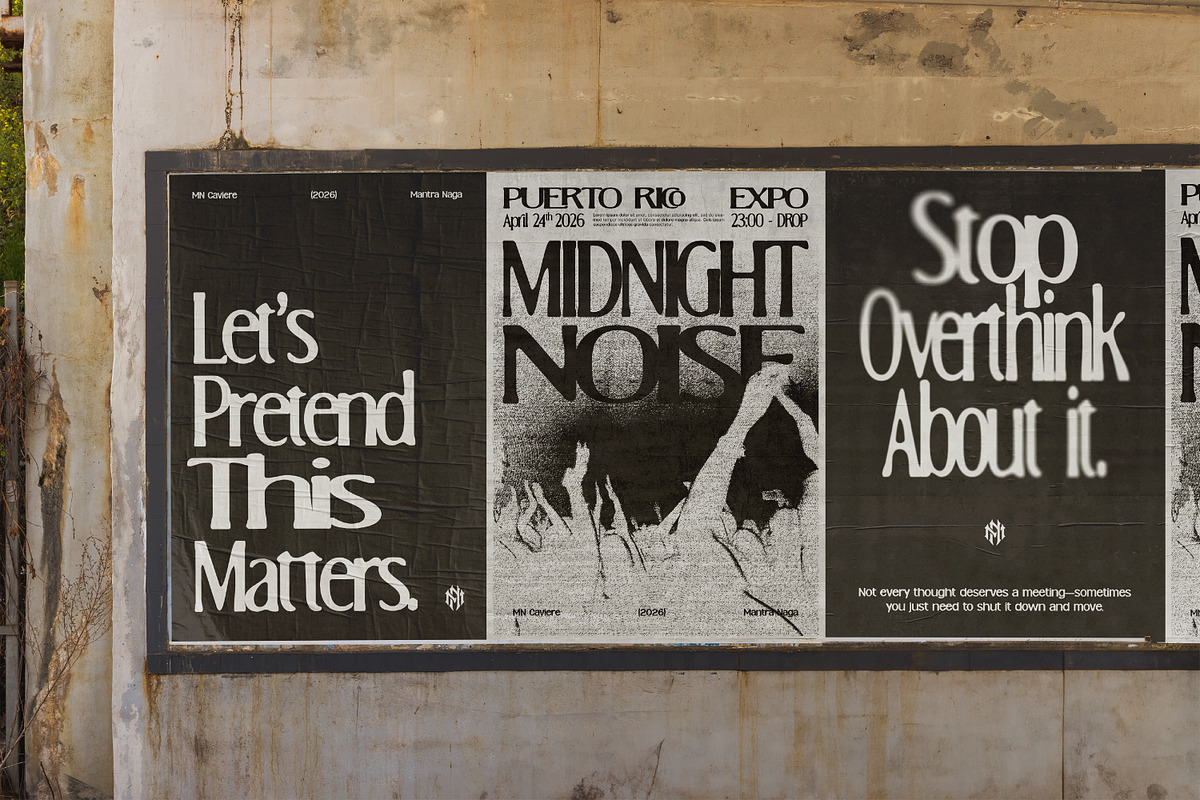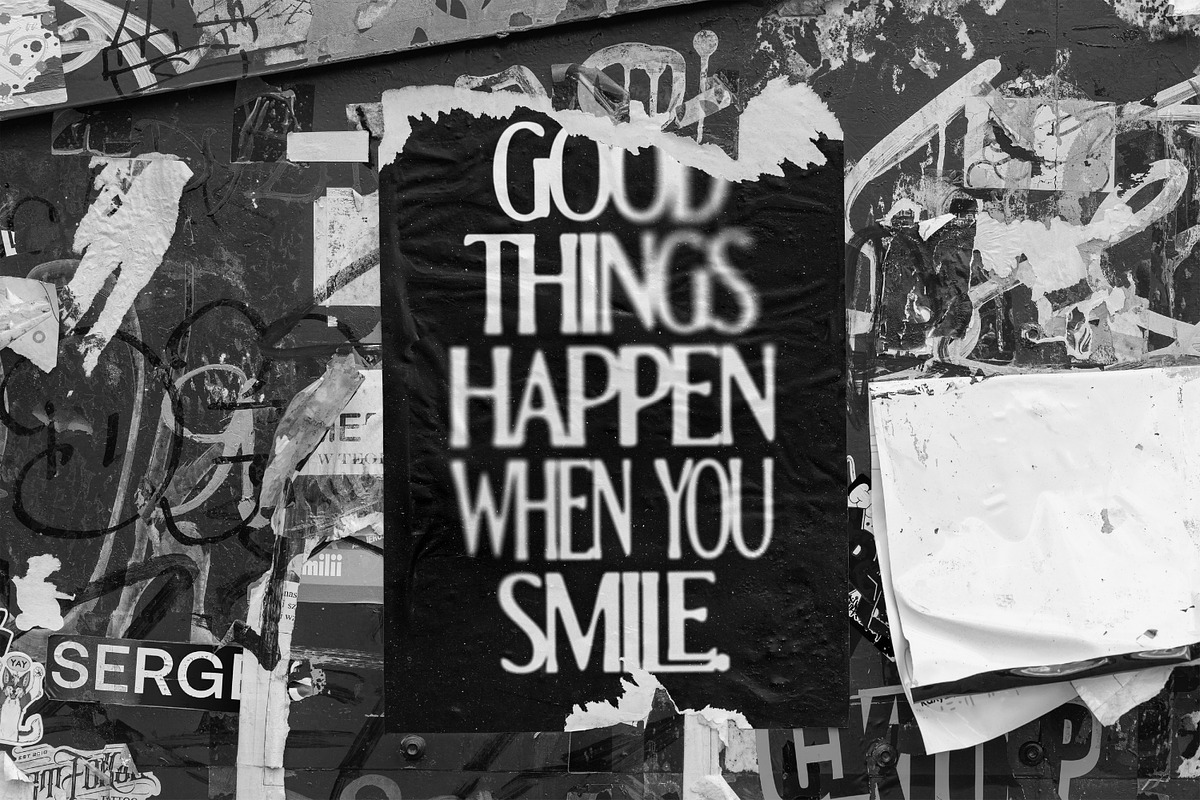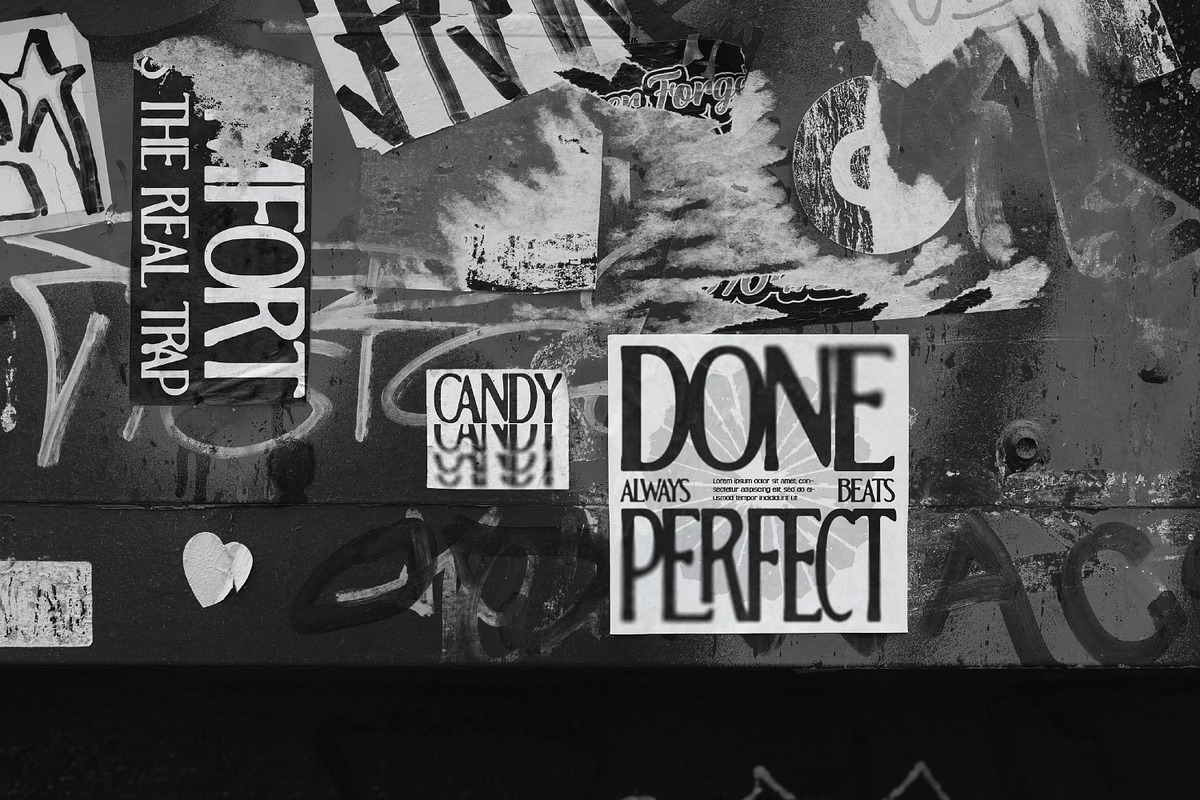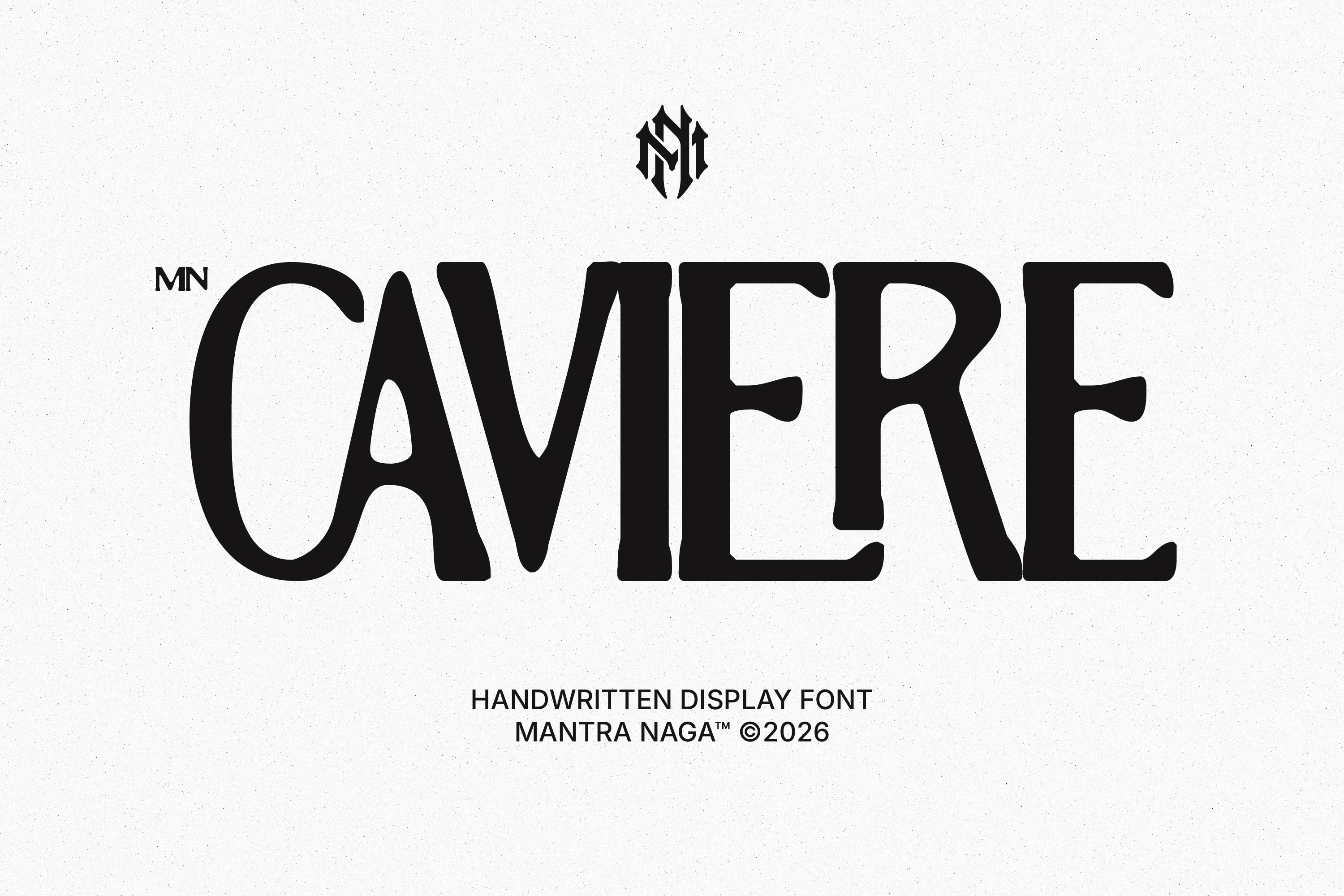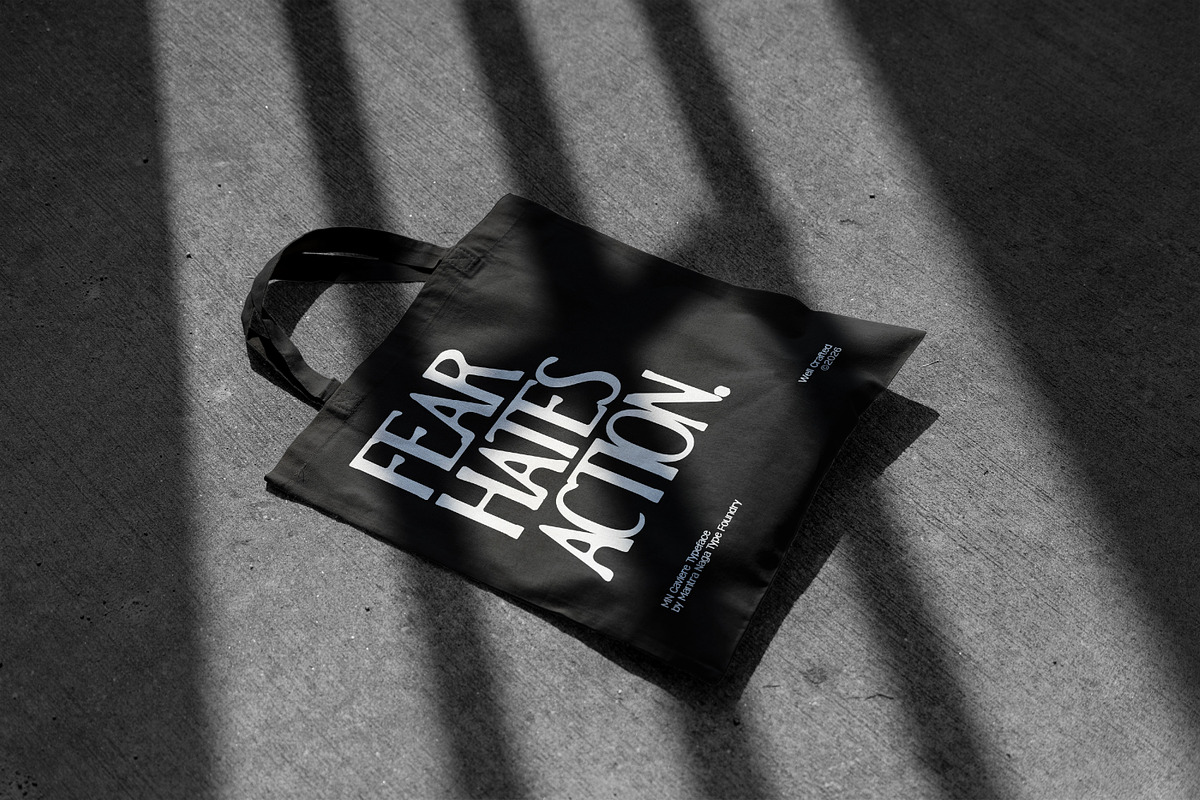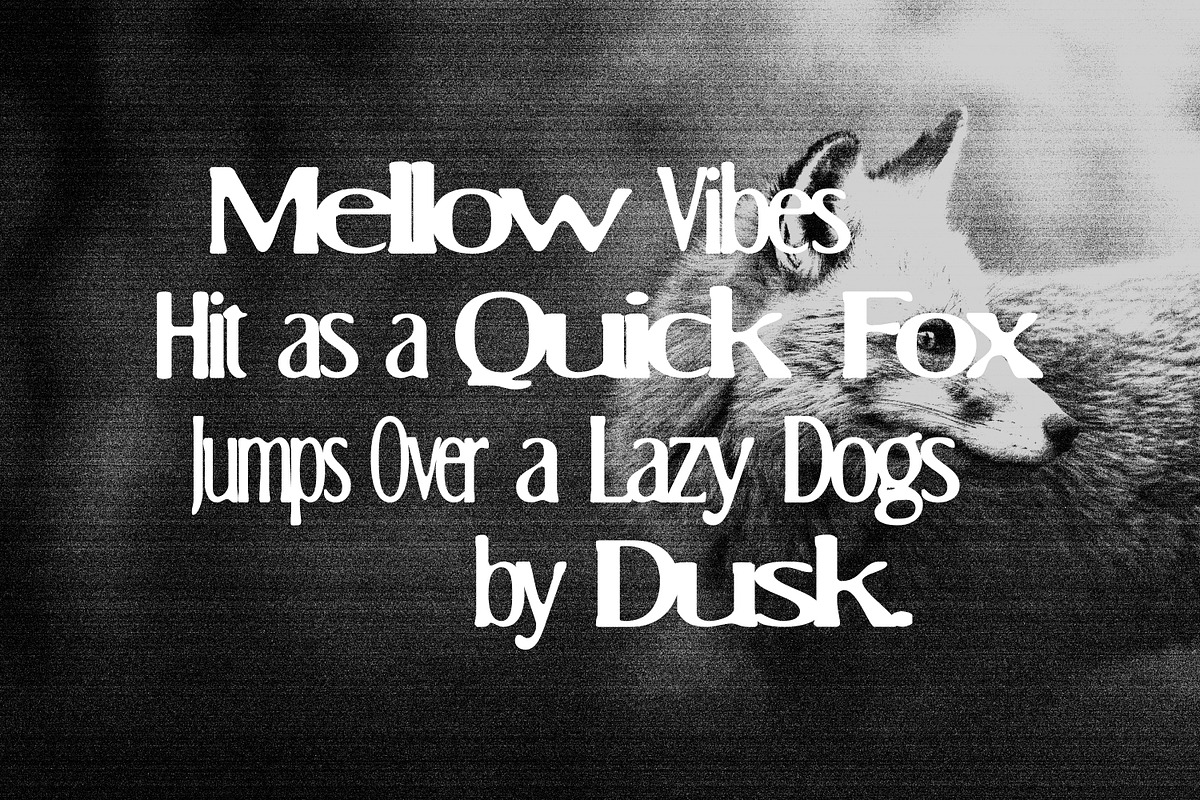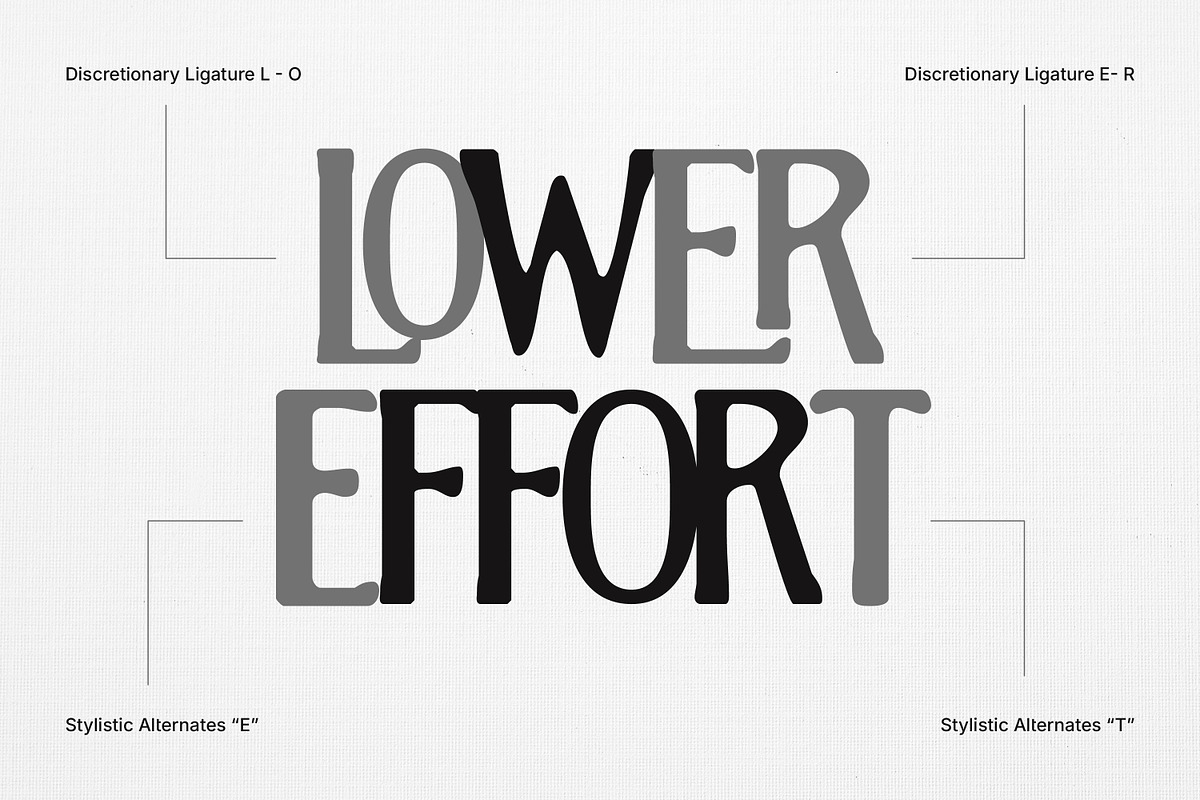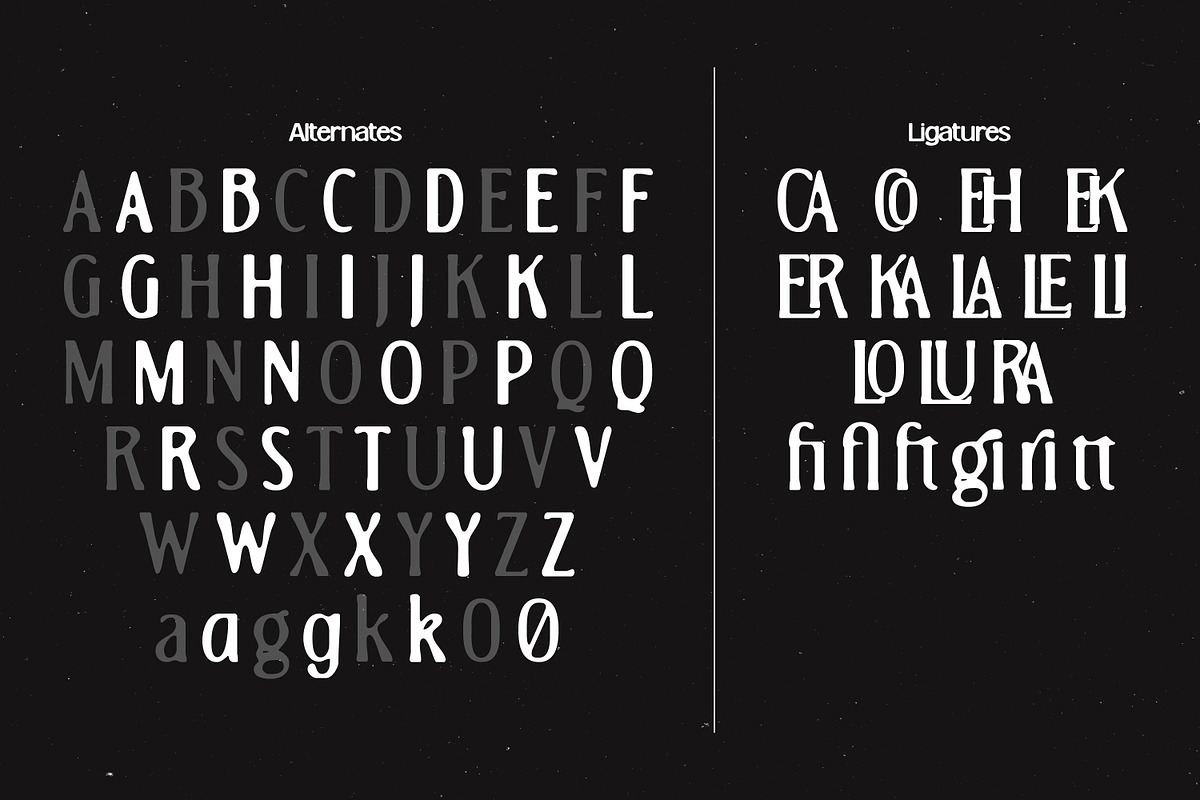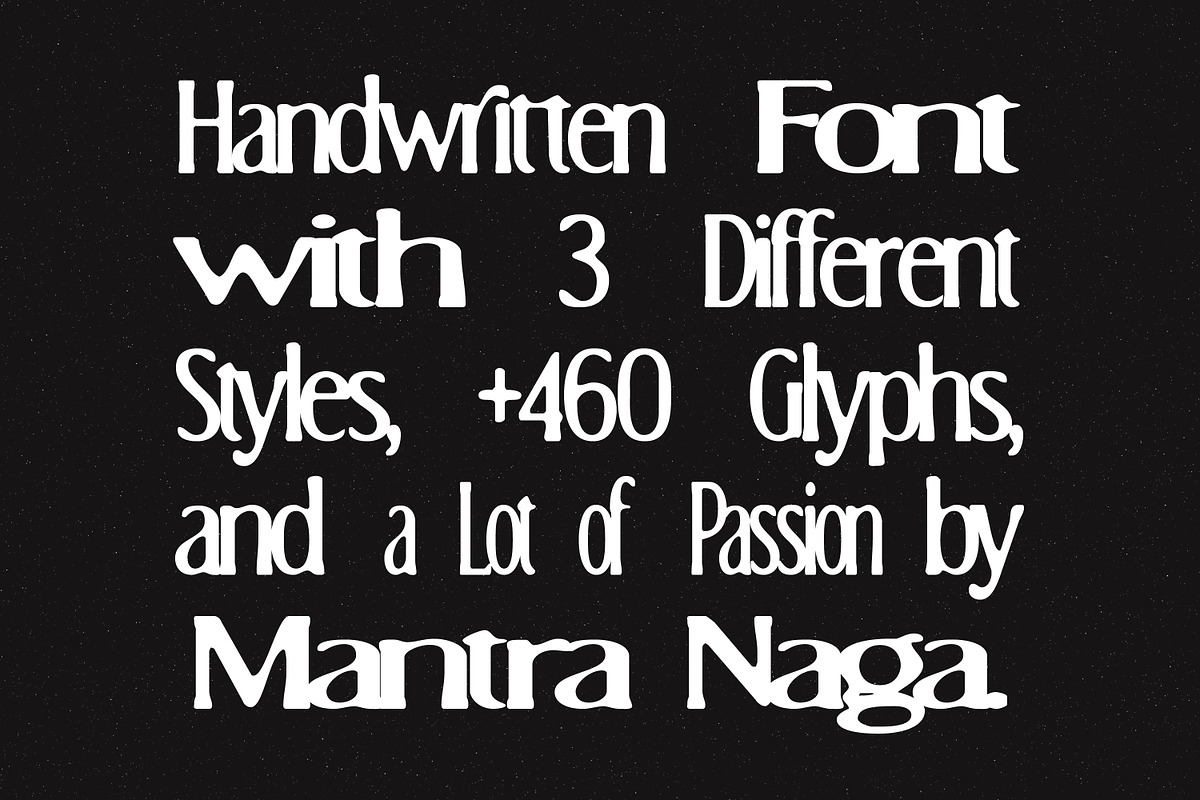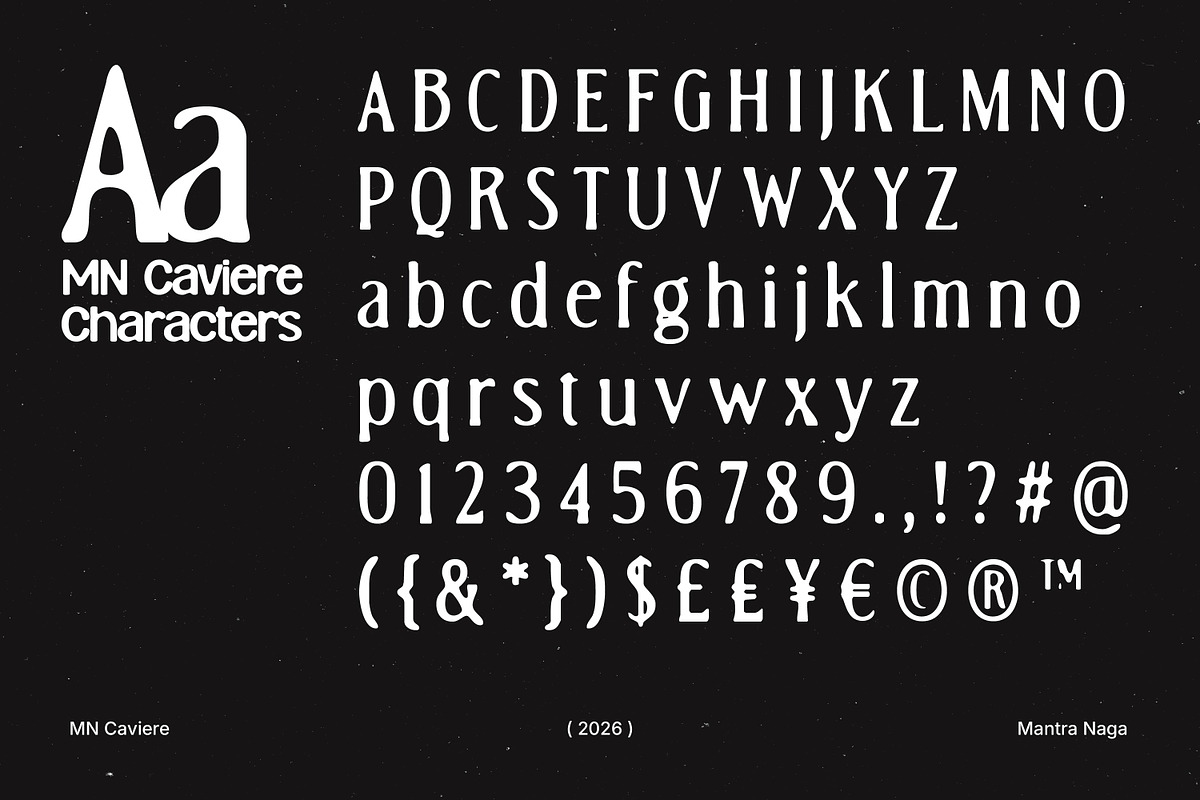
MN Caviere - Blurred Serif Typeface
MN Caviere is a blurred serif typeface that captures the quiet elegance of ink on textured paper. Its defining character lies in a subtle ink-bleed effect. Slightly blurred strokes that give each letterform a soft, organic quality, as if freshly printed with wet ink on a handmade surface.
Tight kerning pulls each word into a dense, cohesive rhythm, making every line feel intentional and tactile. The result is a typeface that doesn't just display text. It evokes craft, texture, and a certain unhurried sophistication.
Designed for creatives who work at the intersection of art and editorial, MN Caviere is built for fashion spreads and artistic publications, album covers and creative posters, niche and artisan brand identities, and any project that calls for something handcrafted in spirit.
If your work demands a typeface with weight, warmth, and a distinct point of view, MN Caviere was made for that.